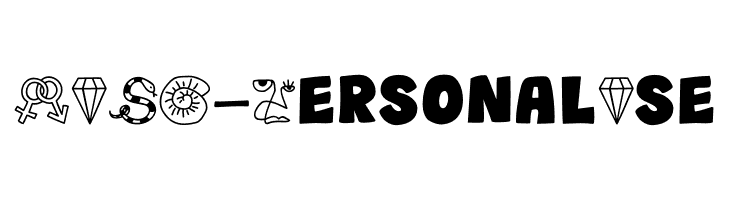
( Fonts by Ef Studio )
A bold, playful font with rounded, hand-drawn characters.
( Fonts by Si Panji )
A bold, graffiti-style font with dynamic, rounded shapes and high contrast.
( Fonts by HPLHS Prop Fonts - Andrew H. Leman http://www.cthulhulives.org/toybox/propdocs/propfonts.html )
An ornate blackletter font with gothic, medieval influences.
A pixelated, blocky font with a retro digital aesthetic.
A playful, rounded font with consistent stroke width and elegant curls.
( Fonts by Tera Asset Garage )
A bold, playful font with rounded, bubble-like characters.
( Fonts by Tera Asset Garage )
A playful, bold outline font with rounded, bubbly characters.